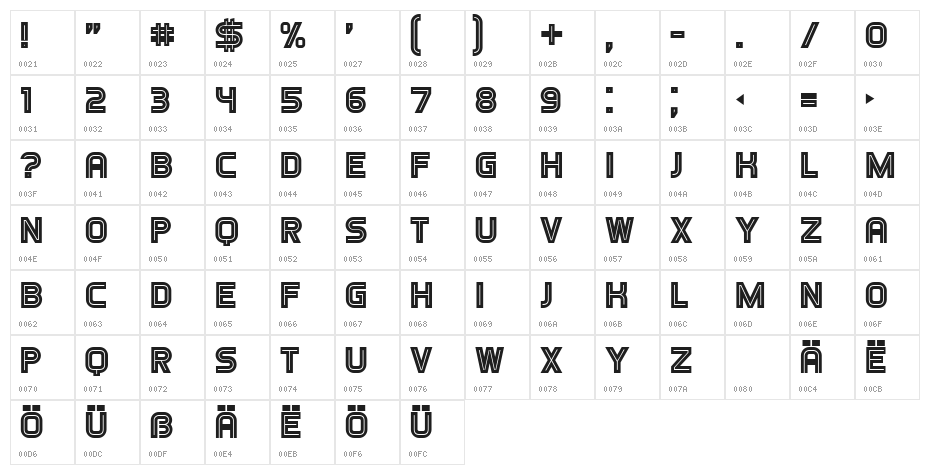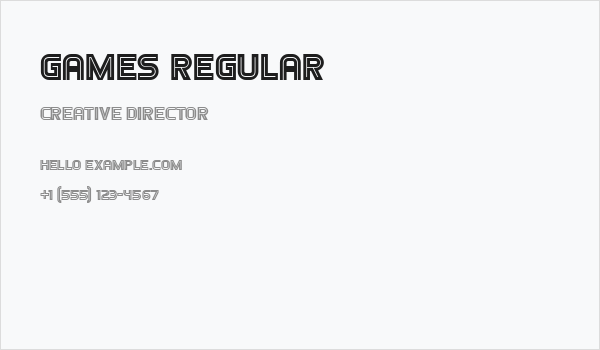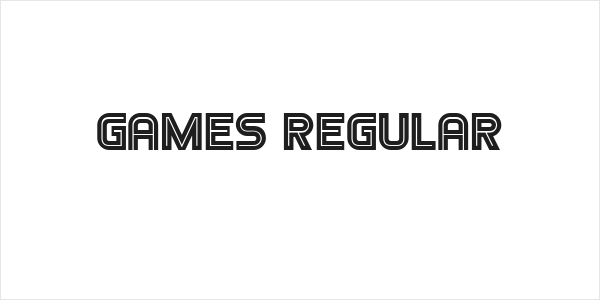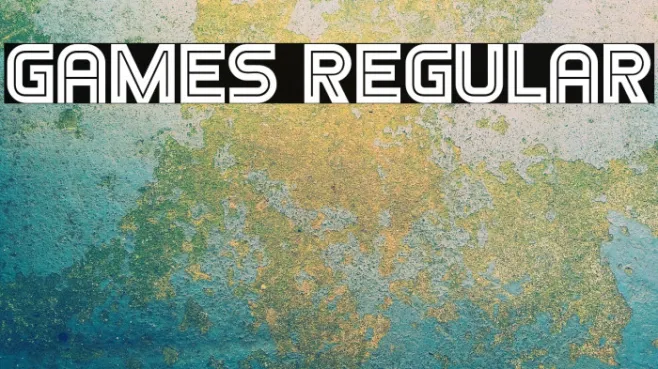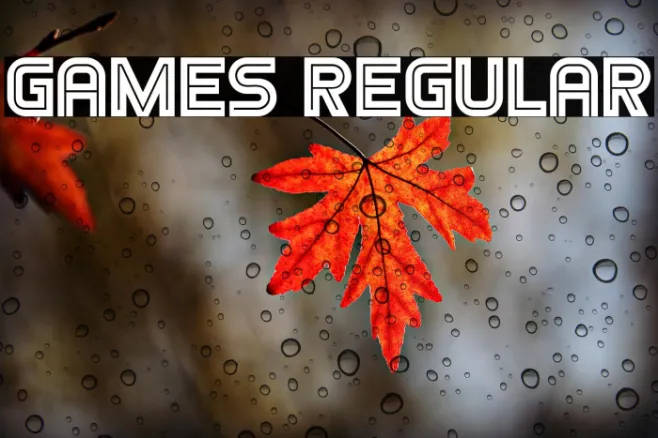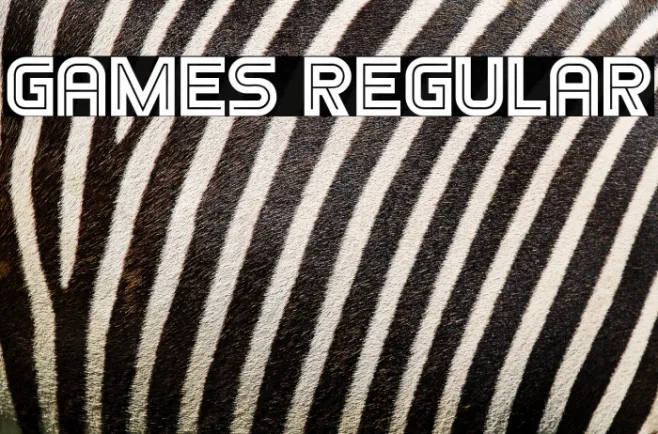
Games Regular Font
Games Regular Description
This font features a bold, geometric design with a strong emphasis on clean lines and a modern aesthetic. The characters are outlined, creating a hollow effect that adds depth and dimension. The uppercase and lowercase letters maintain a consistent style, with sharp angles and a uniform width. The numerals and special characters follow the same design principles, ensuring a cohesive look across all text. This font is ideal for projects that require a contemporary and eye-catching appearance.